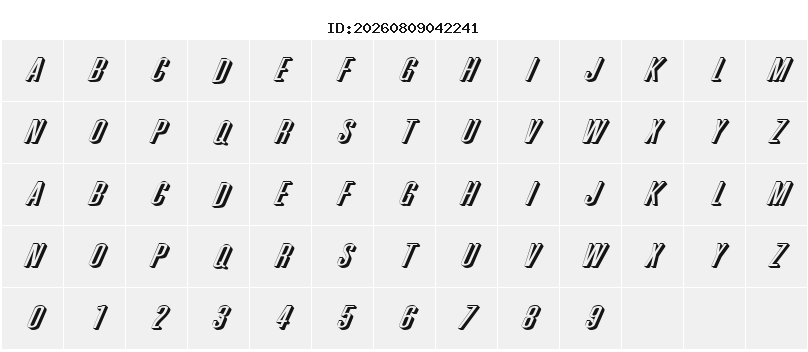
• Font Name: Phoenix Extended D
• Full Font Name: Phoenix Extended D Italic
Phoenix Extended D.ttf is a modern, elegant sans-serif font designed for ultimate readability and visual harmony. Perfect for branding, headlines, web design, and print materials.